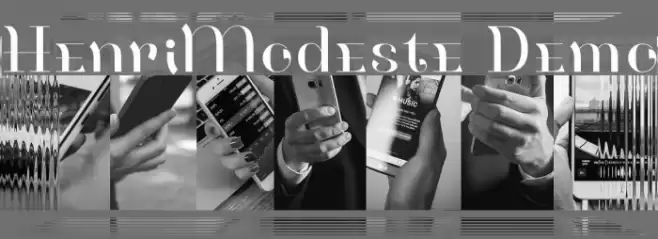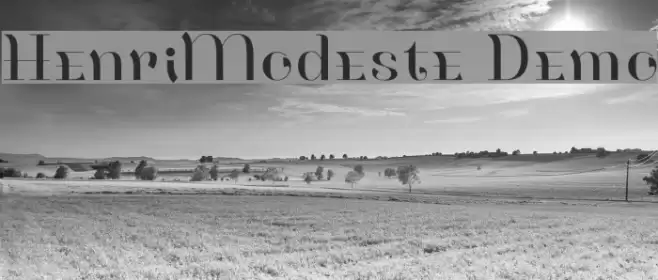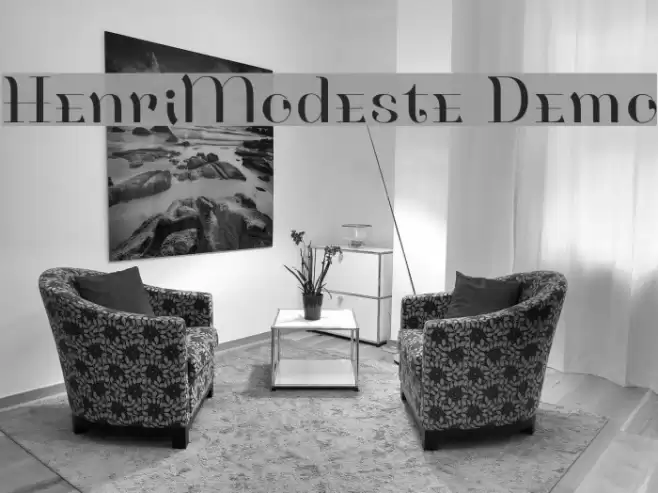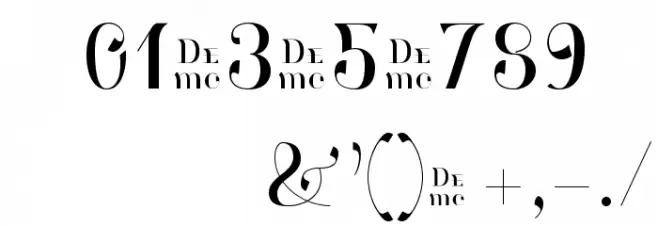
HenriModeste Demo Font
HenriModeste Demo Description
This font features a unique blend of modern and vintage aesthetics, characterized by its high contrast between thick and thin strokes. The uppercase letters exhibit a decorative flair with elegant curves and sharp serifs, while the lowercase letters maintain a more subdued yet sophisticated style. The numerals and special characters continue this theme, offering a cohesive and visually striking appearance. The font's distinct personality makes it suitable for creative and artistic projects, where a touch of elegance and sophistication is desired.
A high-contrast, decorative font with modern and vintage elements from Uncategorized fonts.
- Proposed Projects: Ideal for branding, editorial design, invitations, and artistic posters.
- Overall Style: Modern, Vintage